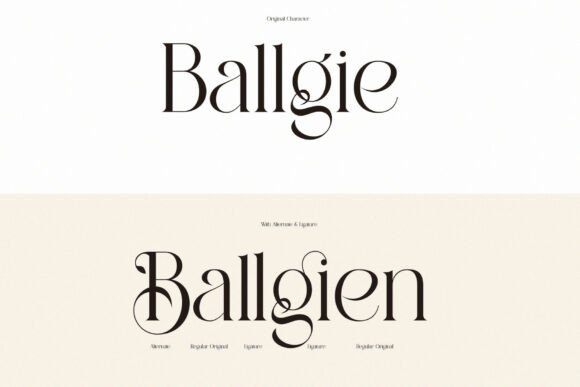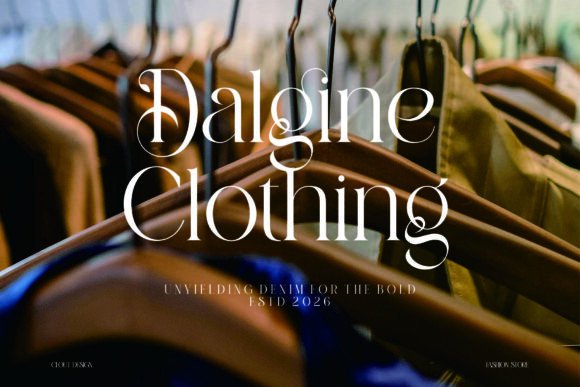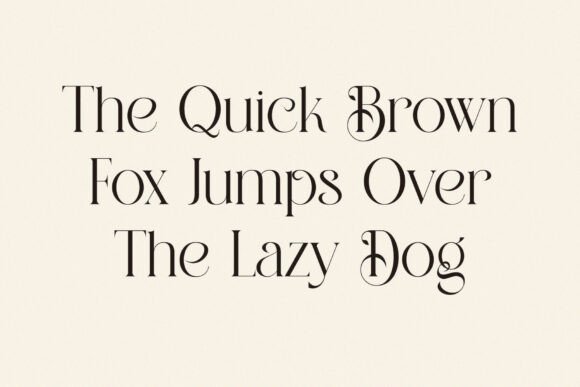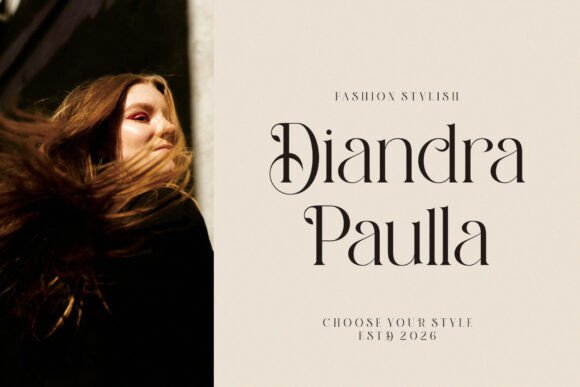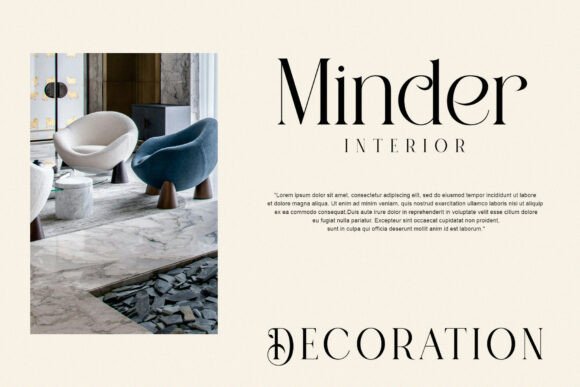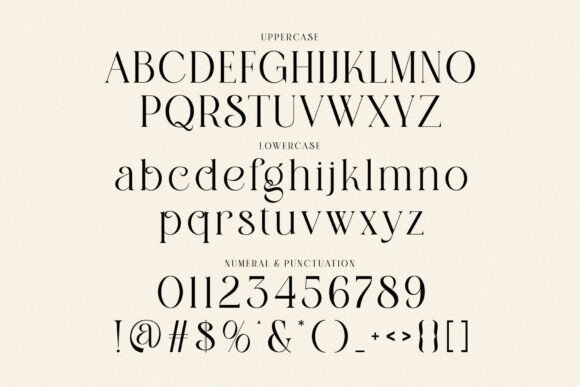
Introducing Belgia Font: Elevate Your Designs with Timeless Elegance
In the world of typography, few fonts manage to strike a balance between classic sophistication and modern flair. Belgia Font is one such exceptional typeface that seamlessly blends refined elegance with a subtle contemporary touch. Designed with precision and attention to detail, Belgia is perfect for those seeking to add a luxurious feel to their premium branding, editorial layouts, and invitations.
The Essence of Belgia Font
Belgia is a ligature serif font that stands out for its graceful and harmonious flow. Each character is meticulously crafted to ensure a smooth reading experience, making it ideal for high-end projects. The font’s design is characterized by its refined serifs, elegant letterforms, and beautiful ligatures that add a touch of sophistication to any text.
Key Features of Belgia Font
- Refined Ligature Serif Design: Belgia boasts a classic serif design with a modern twist, thanks to its ligatures that create a fluid and cohesive look.
- Precision Craftsmanship: Every character in the Belgia font is designed with precision to ensure clarity and readability, making it perfect for both digital and print applications.
- Elegant and Luxurious Feel: The font’s sophisticated design lends an air of luxury and elegance to any project, making it suitable for premium branding, high-end editorial content, and formal invitations.
- Versatility: Belgia can be used across various design projects, from corporate branding and editorial layouts to wedding invitations and event marketing materials.
Applications of Belgia Font
Belgia’s versatile and elegant design makes it suitable for a wide range of applications. Here are some of the ideal uses for this refined font:
- Premium Branding: Elevate your brand’s visual identity with Belgia’s sophisticated and luxurious aesthetic, perfect for creating a lasting impression.
- Editorial Layouts: Add a touch of elegance to your editorial content, whether it’s for a magazine, newspaper, or online publication.
- Invitations and Event Marketing: Make your invitations, event programs, and marketing materials stand out with Belgia’s refined and classy appearance.
- Packaging Design: Use Belgia to add a sophisticated touch to product packaging, enhancing the overall brand experience.
Why Choose Belgia Font?
In a market flooded with numerous fonts, Belgia stands out for its unique blend of classic elegance and modern sophistication. Here are a few reasons why designers and crafters should consider Belgia for their projects:
- Unique Ligatures: Belgia offers beautiful ligatures that enhance the flow of text, making it more readable and visually appealing.
- High Versatility: The font’s design is versatile enough to be used in various contexts, from digital interfaces to print materials.
- Timeless Appeal: Unlike trends that fade over time, Belgia’s classic design ensures it remains relevant and stylish for years to come.
Belgia Font is a remarkable typeface that brings together the best of both worlds – timeless elegance and modern sophistication. Its refined ligature serif design, precision craftsmanship, and luxurious feel make it an excellent choice for designers and crafters looking to elevate their projects. Whether you’re working on premium branding, editorial layouts, or formal invitations, Belgia is sure to deliver a sophisticated and high-end look that leaves a lasting impression.
Discover the elegance of Belgia Font and take your designs to the next level with its unique blend of classic charm and contemporary flair.